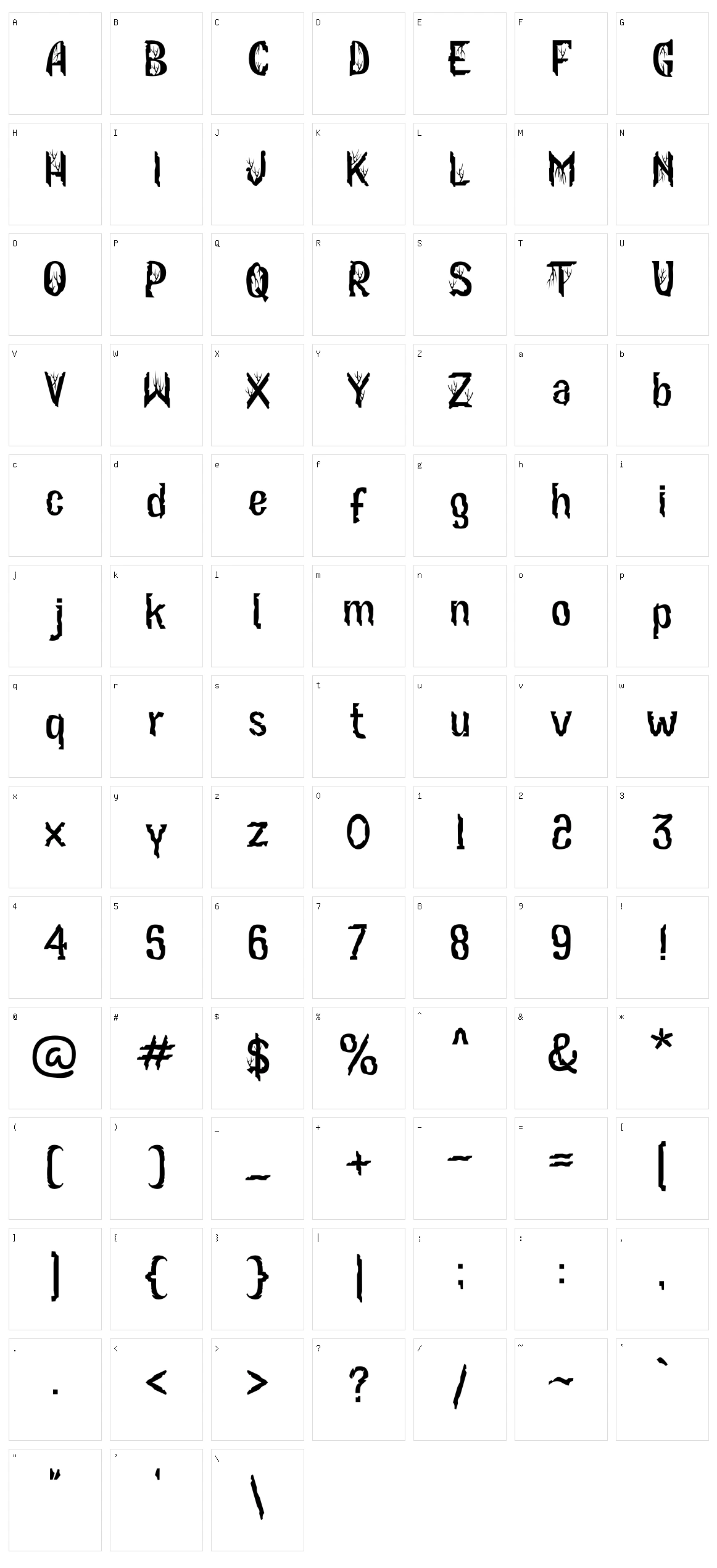
The free font Fyrtez is carefully designed by LittleWind Studio, showcasing a thoughtful balance of creativity and usability and falls under the Halloween font style. When you download the ZIP file, it contains only 21.95 KB of font files, making it lightweight and quick to download. Please review the license details below to understand permitted usage and distribution rights. If license information is not available, we recommend using this font for personal projects only or contacting the author directly for commercial usage permissions.